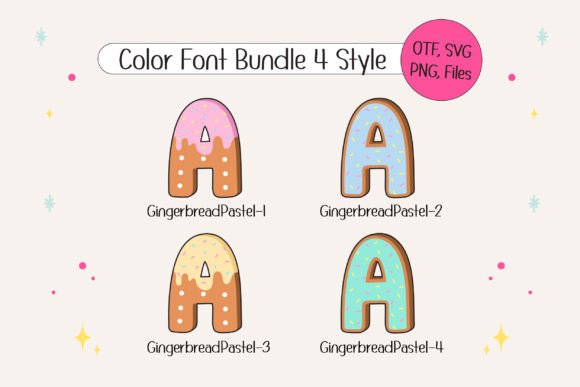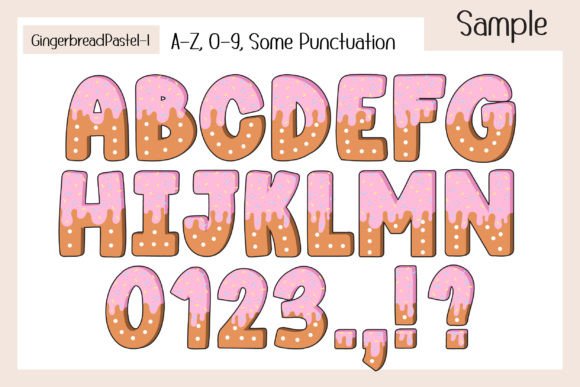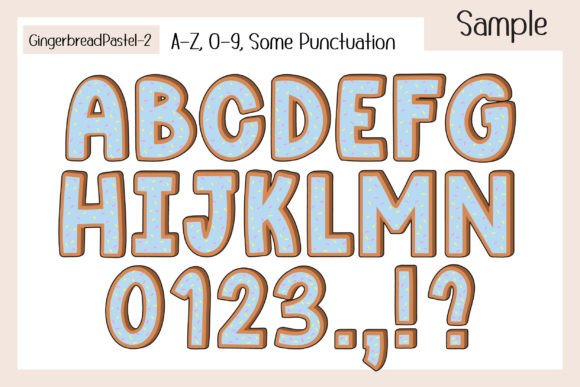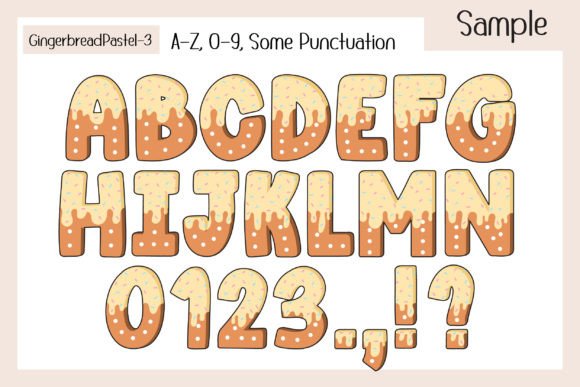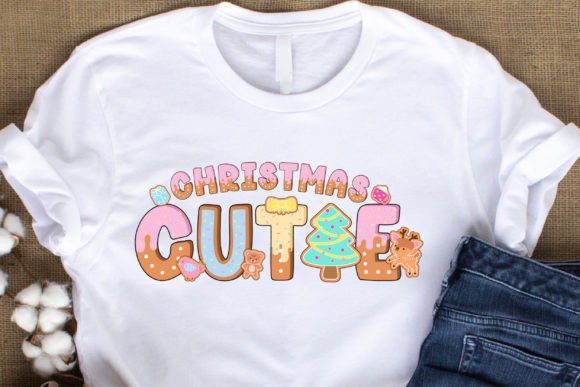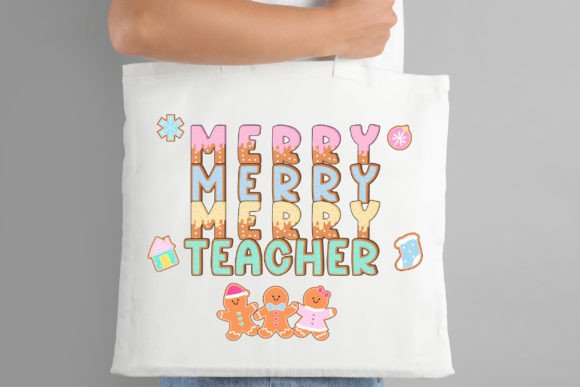
Gingerbread Pastel Cream Font
Introducing “Gingerbread Pastel Cream” is the ‘PASTEL’ Cream version, a sweet and playful Christmas font inspired by gingerbread cookies topped with soft pastel cream. This charming color font features four Christmas-themed ‘PASTEL’ color styles and includes 20 bonus matching clip arts, making it perfect for adding a gentle, festive touch to your Christmas posters, T-shirts, branding, custom DIY craft projects, quotes, personalized names, and more. “Gingerbread Pastel Cream” brings a warm and whimsical vibe to all your holiday creations.